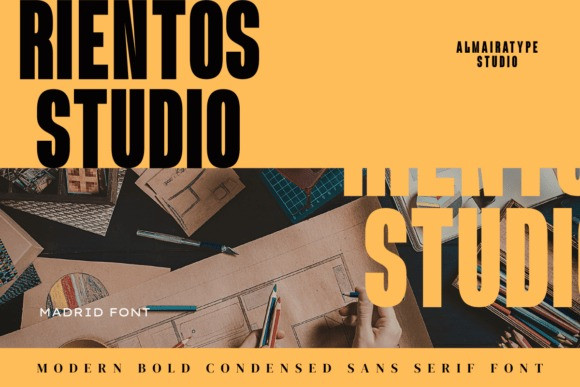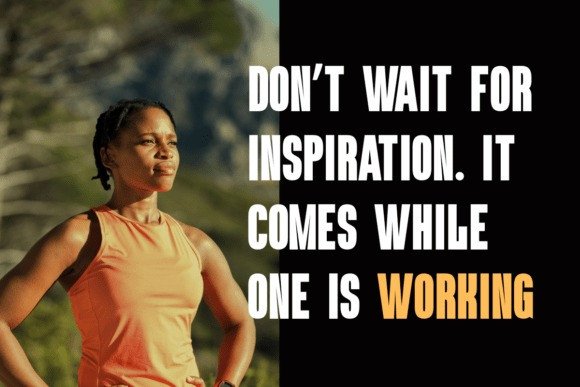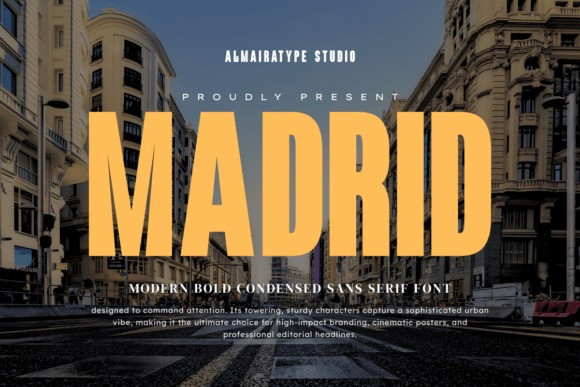
Madrid Font
Madrid Font is a modern bold condensed sans serif font designed to command attention with its towering and sturdy character structure. It perfectly captures a sophisticated urban vibe, making it the ultimate choice for designers aiming for high-impact branding, cinematic posters, and professional editorial headlines. This typeface features clean, geometric lines that provide a sleek and contemporary aesthetic, suitable for both digital and print media. Whether you are working on architectural projects, luxury fashion advertisements, or bold sports graphics, Madrid offers a versatile and commanding presence that elevates any design. Its balanced proportions and condensed width allow for maximum space efficiency without losing visual weight, ensuring your message remains clear and powerful. Add a touch of metropolitan elegance to your creative toolkit with the distinct and impactful look of the Madrid typeface.